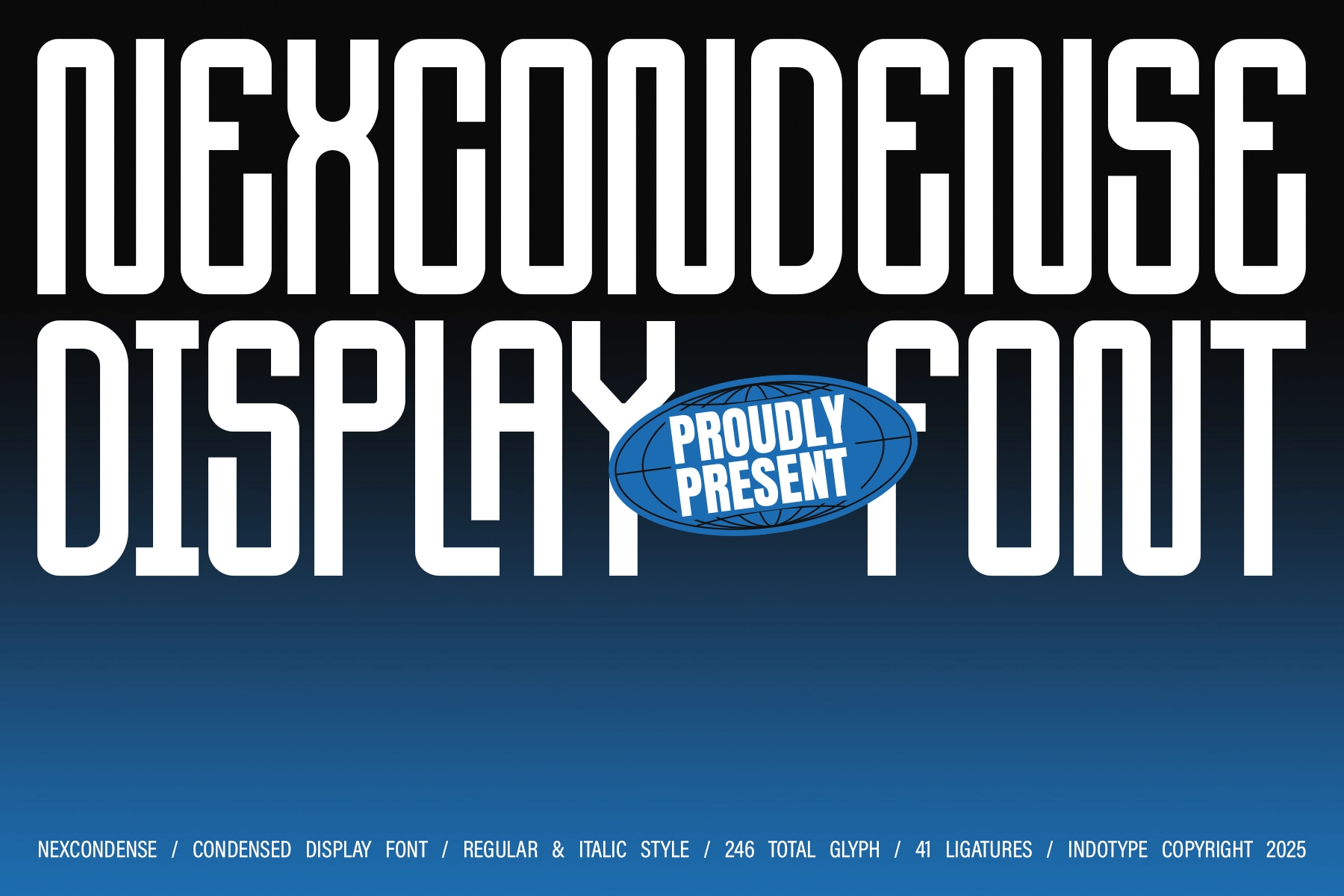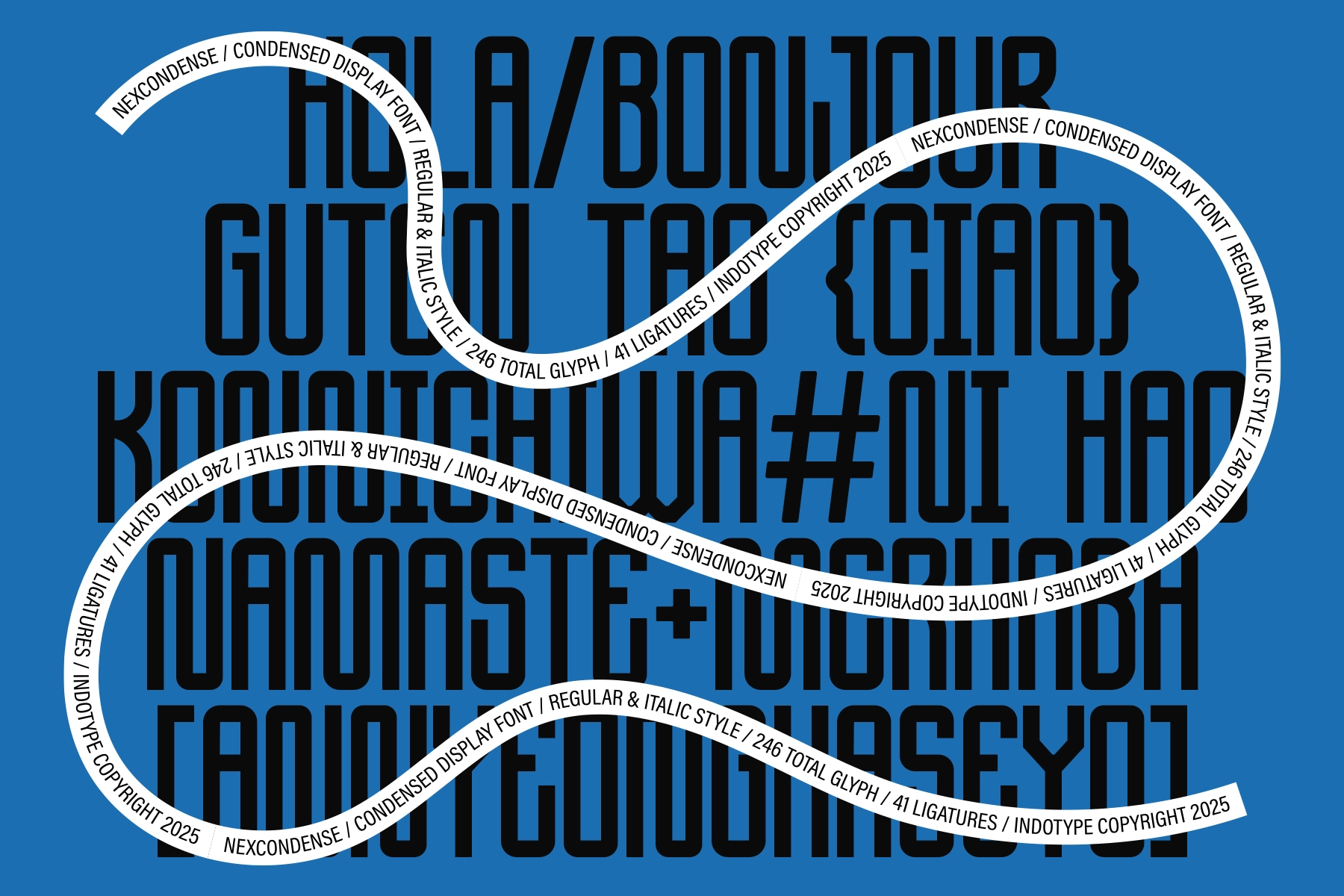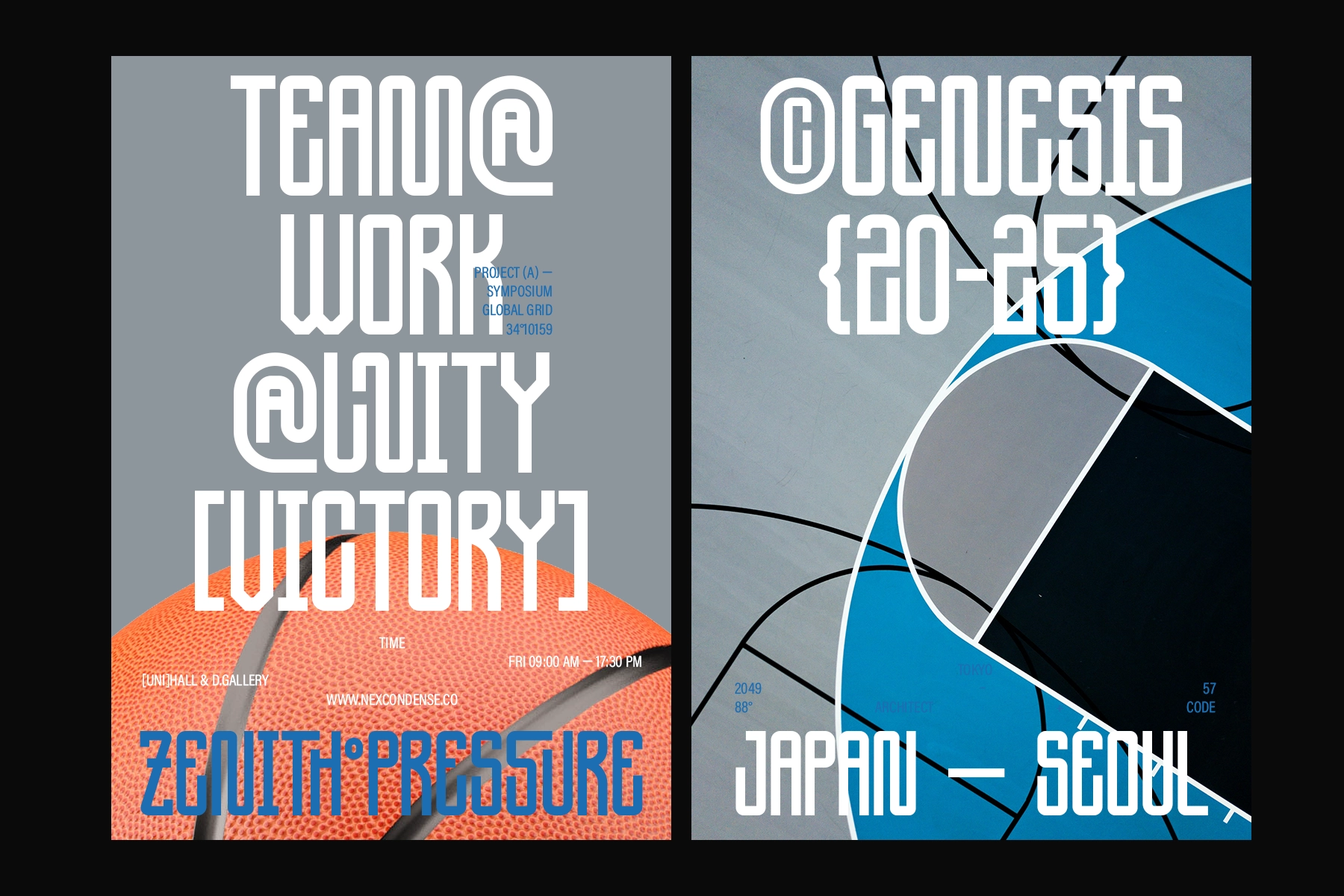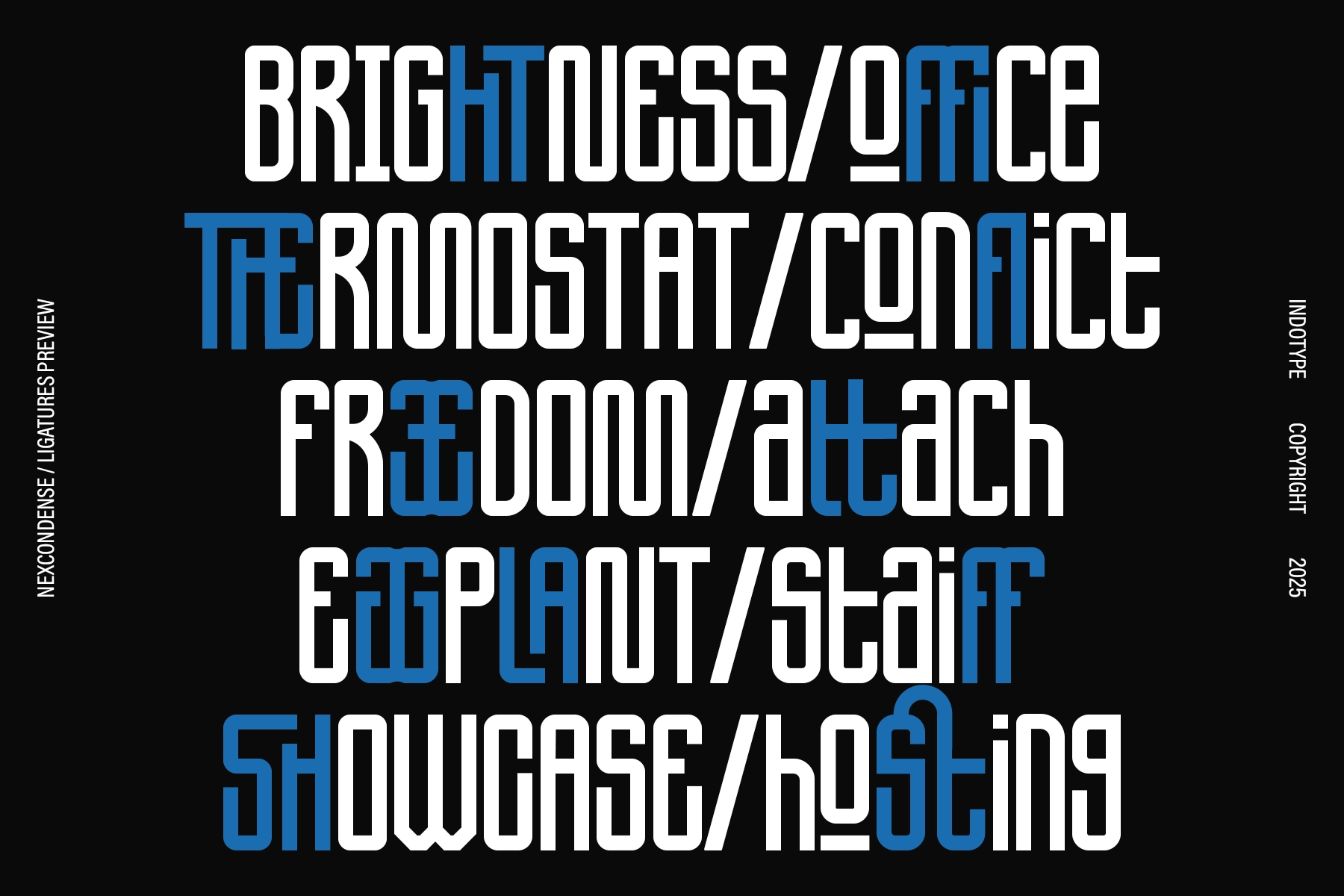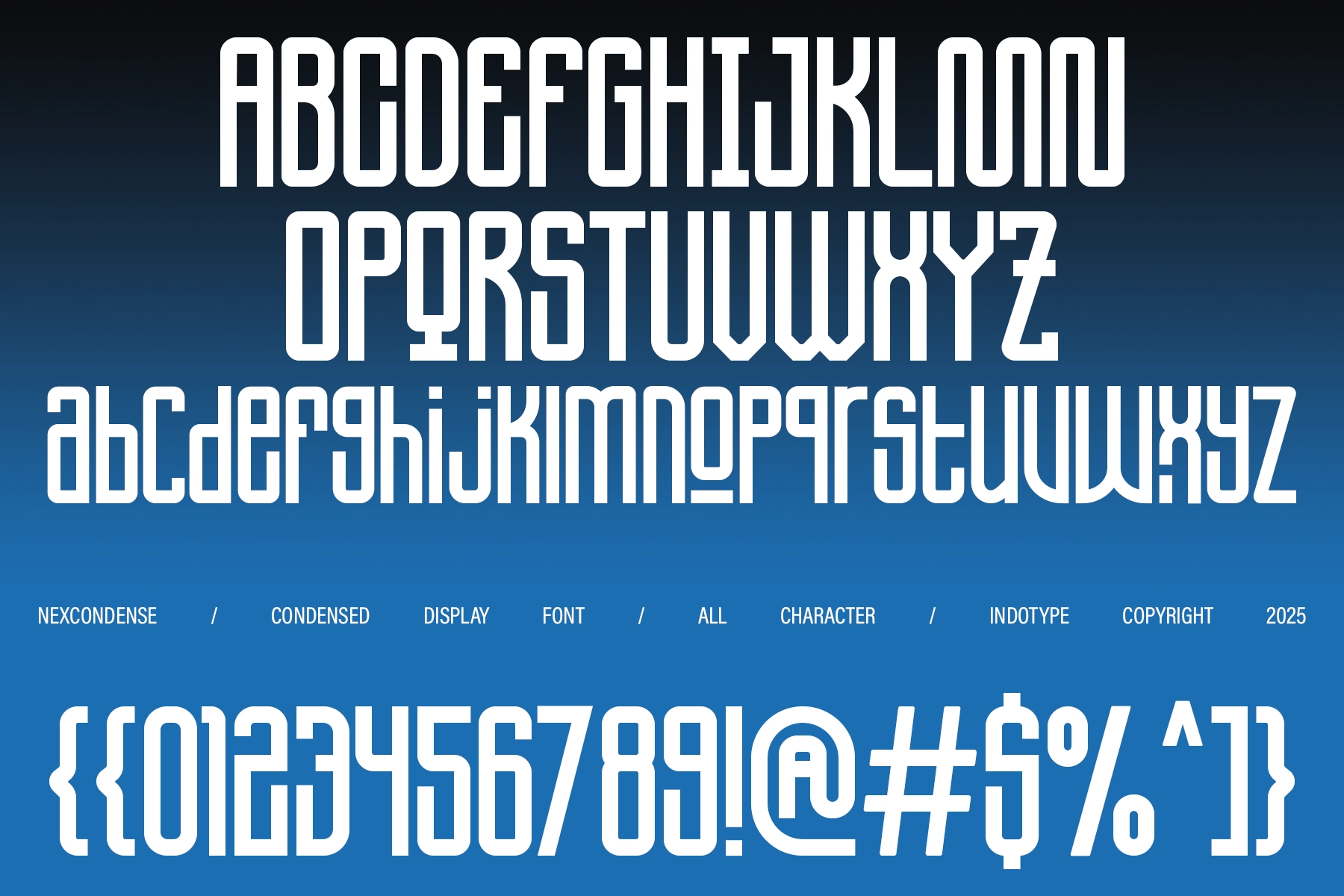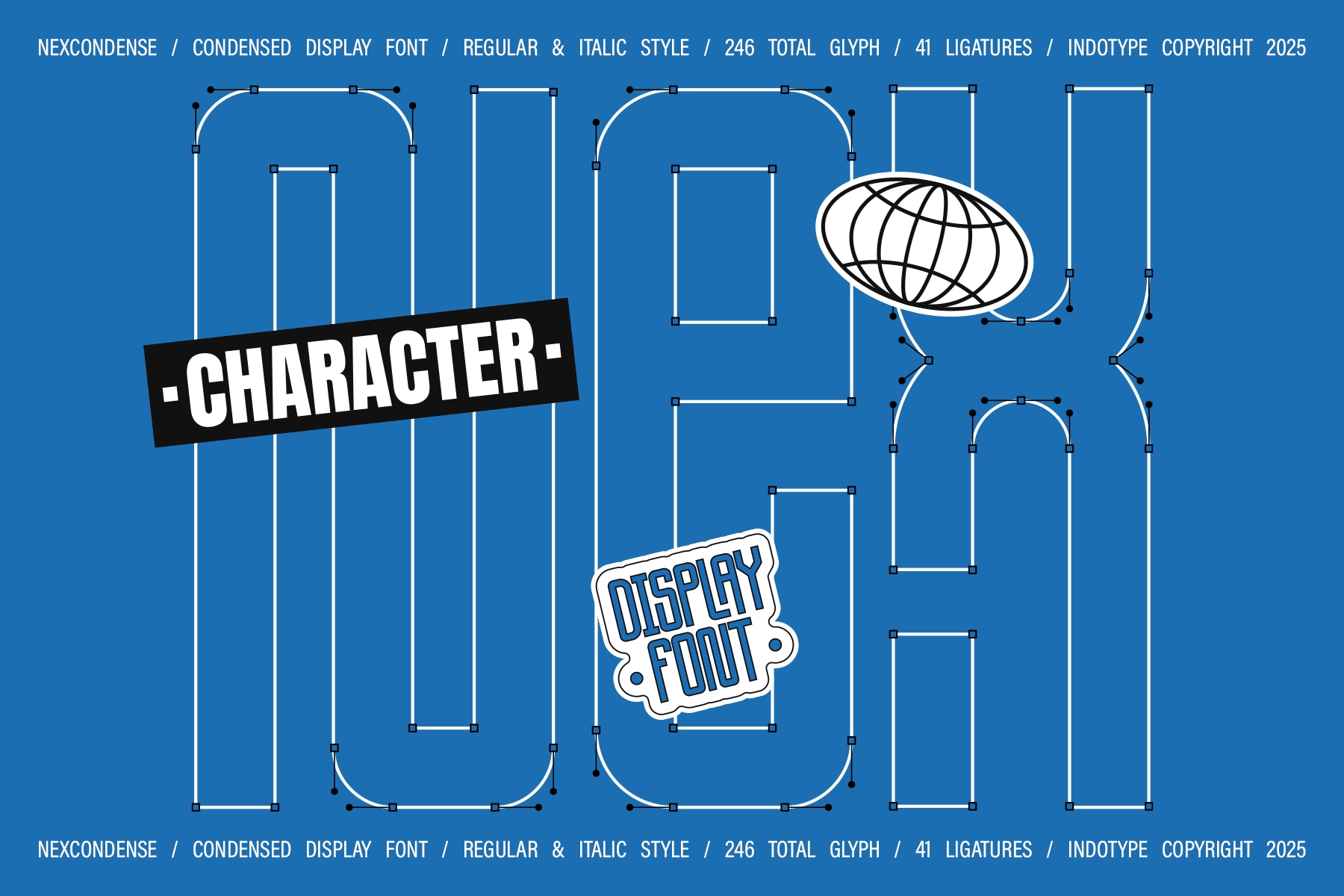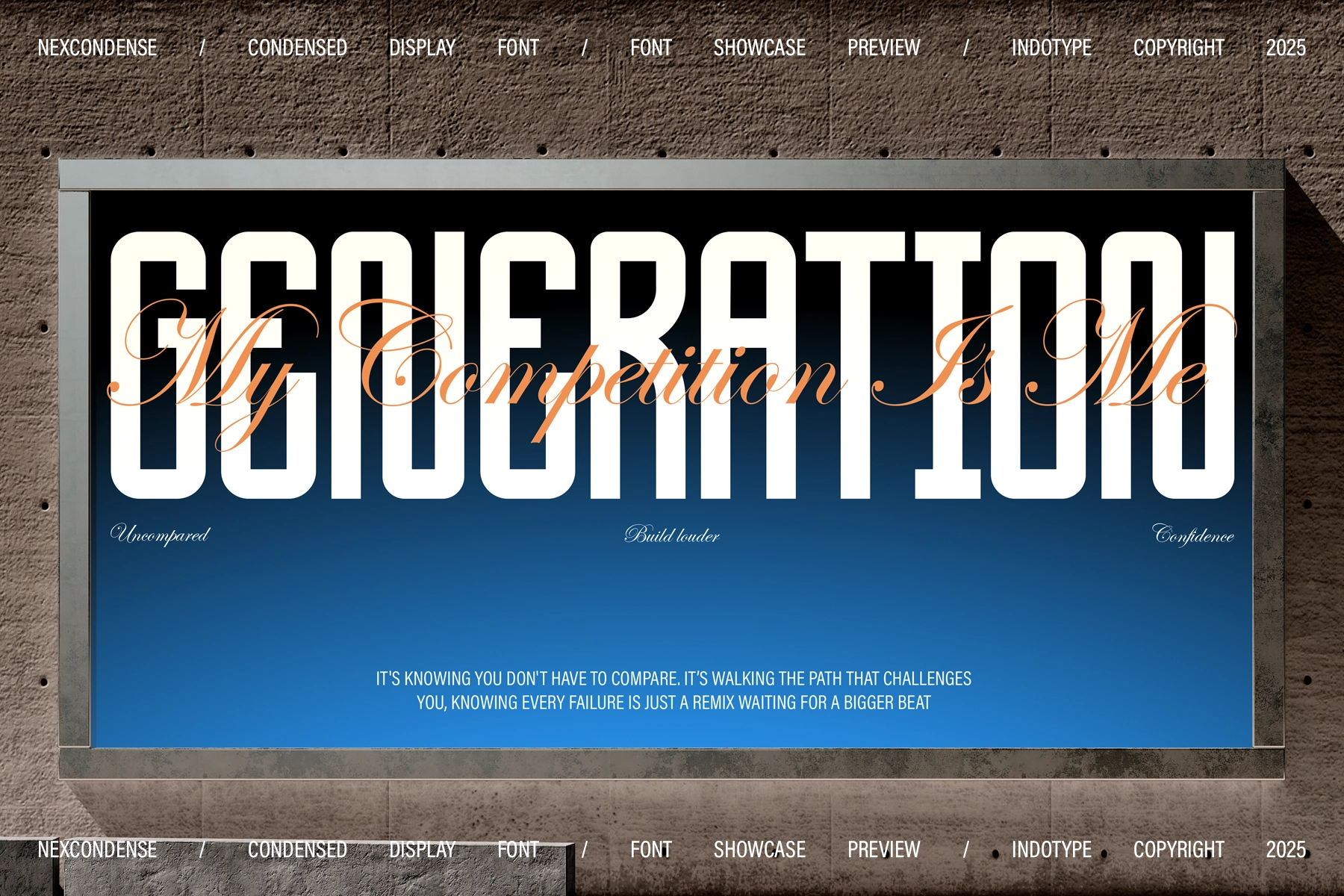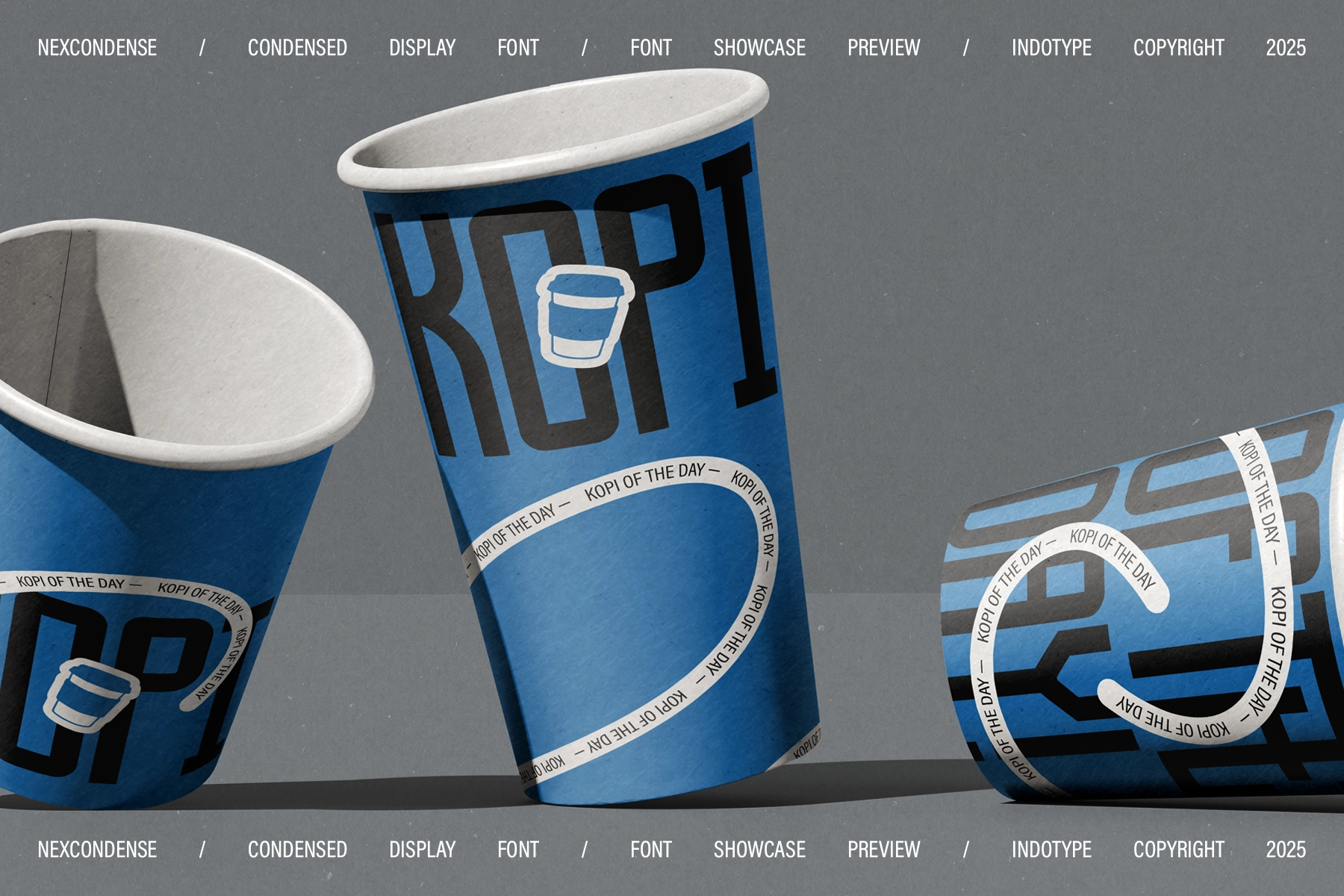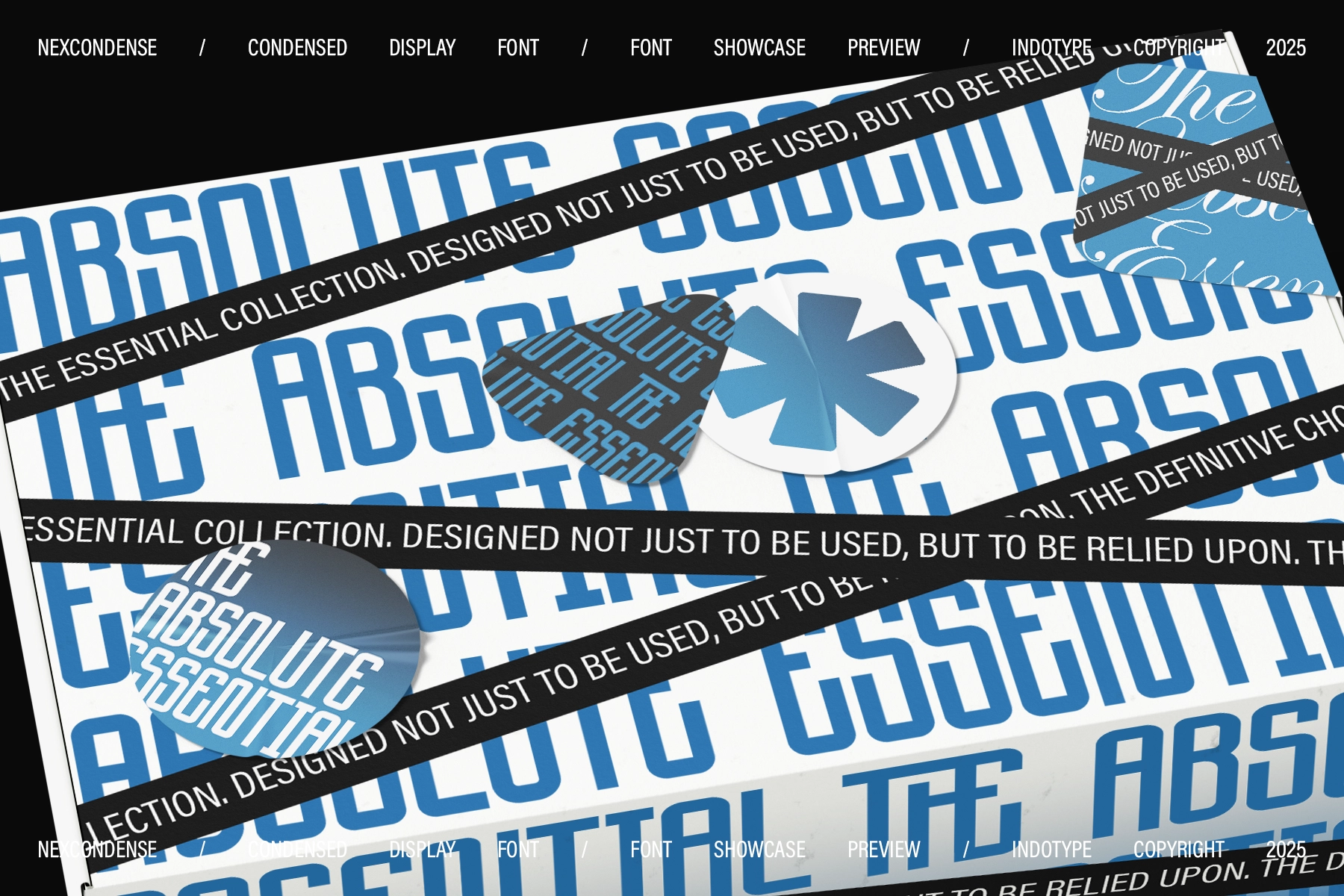
NexCondense - Condensed Display Font
NexCondense is a condensed display font with a tight geometric construction — uniform stroke weight, rounded terminals on a narrow body, and a vertical rhythm that reads as technical rather than humanist. The capitals are built for stacking at large scale; the ligatures lock adjacent letterforms into single units the way engineered type does, not ornamental script. The italic doesn't add calligraphic curve — it pushes the same shapes forward at an angle, which keeps the visual voice consistent across both styles.
With 246 glyphs across Regular and Italic, it works for editorial headlines, sports branding, tech interface titles, packaging sleeves, streetwear graphics, event posters, and motion title cards.
• 2 styles: Regular, Italic;
• Uppercase & lowercase;
• Numerals, punctuation & symbols;
• 41 ligatures;
• 246 glyphs total